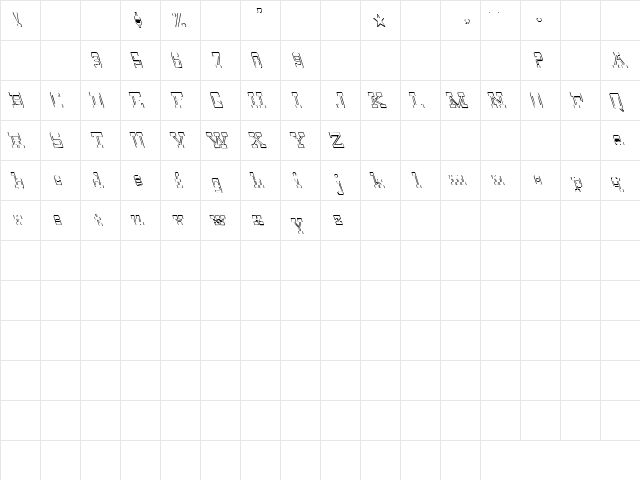
El Paso 2 Regular
Design Context for El Paso 2 Typeface
El Paso 2 is a composed and adaptable typeface that performs quietly and consistently across a wide range of design contexts.